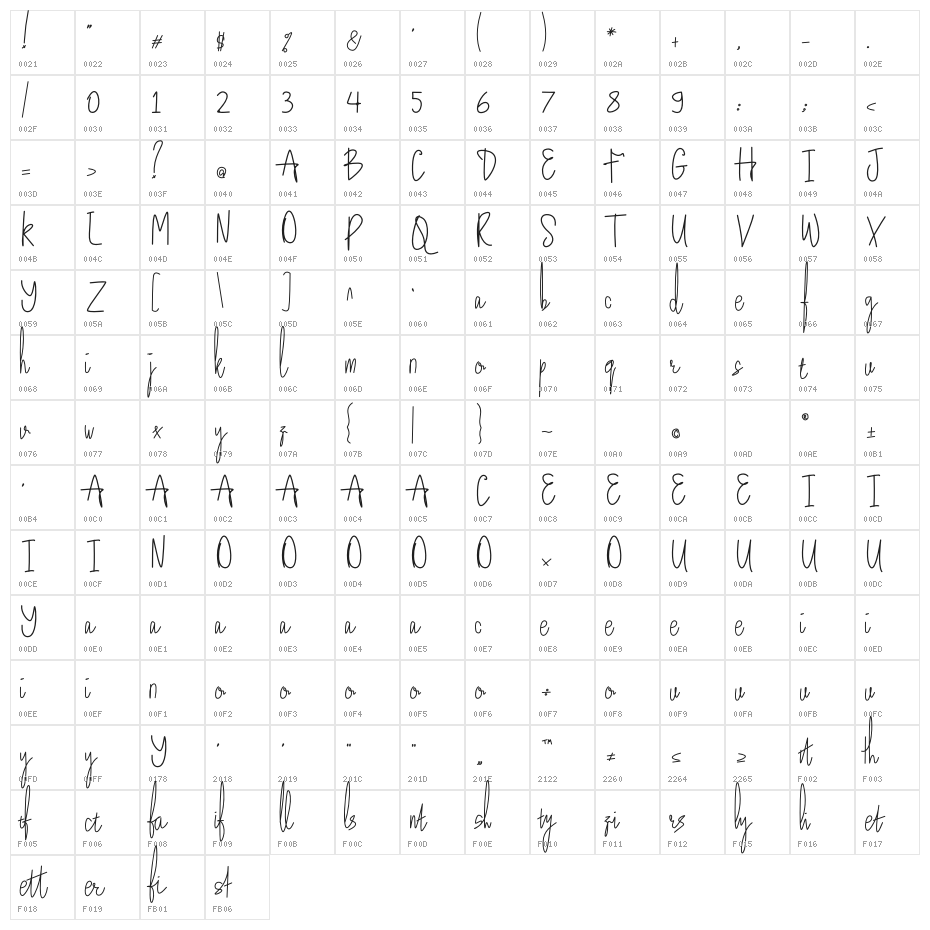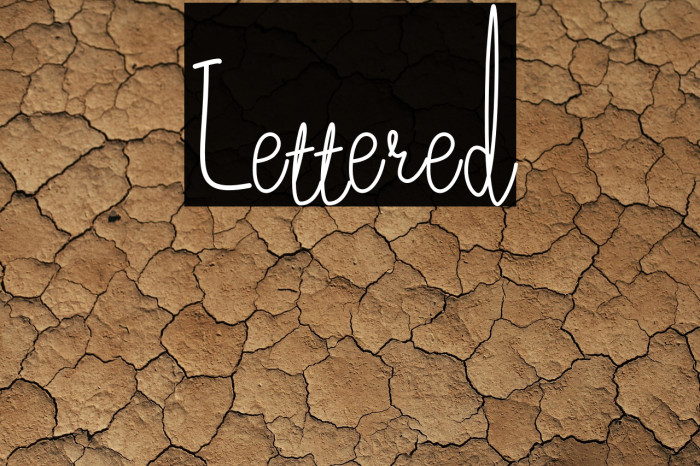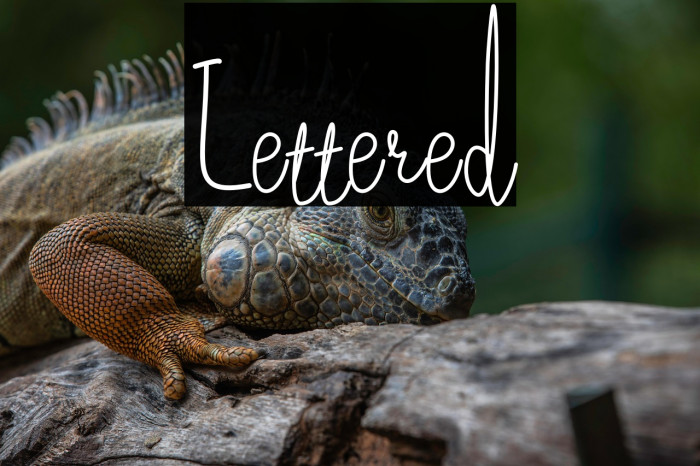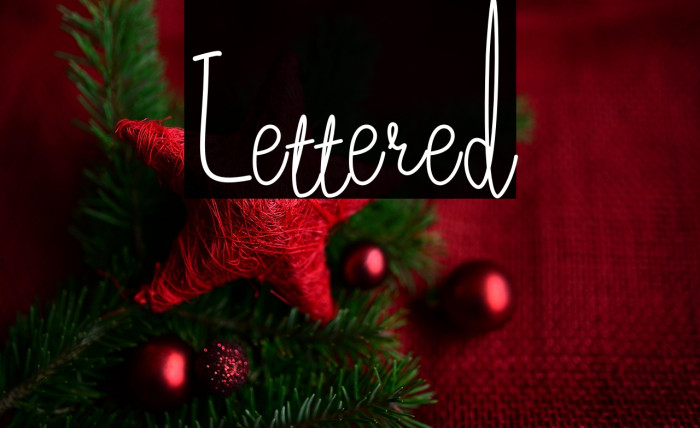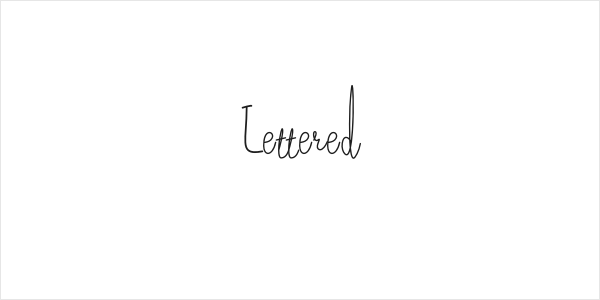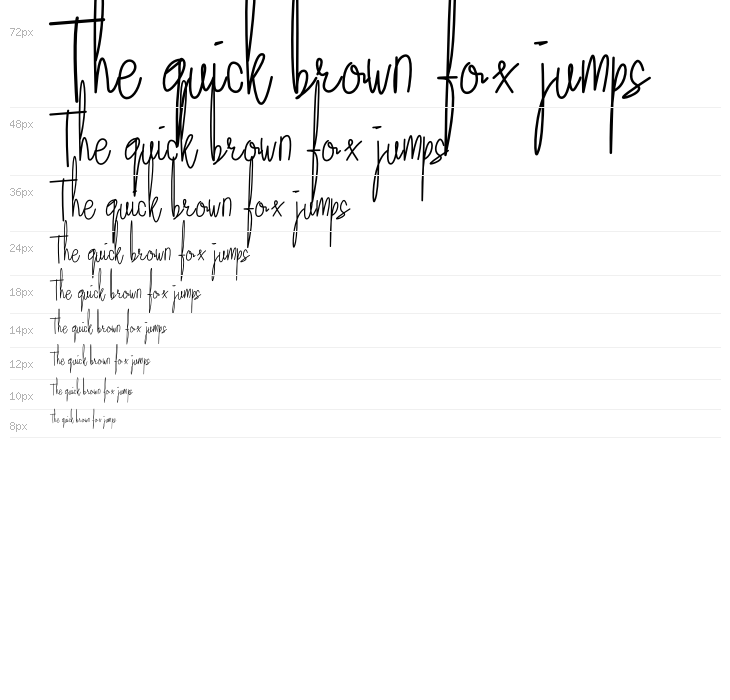
Lettered Font
Lettered Description
This font features a playful and casual handwritten style, characterized by its tall and slightly irregular letterforms. The strokes are thin and consistent, giving it a light and airy feel. The uppercase letters are bold and prominent, while the lowercase letters maintain a more delicate appearance. Numbers and special characters follow the same whimsical style, making the font suitable for creative and informal applications. The overall look is modern and approachable, with a touch of personal flair.
| Overall Style | Modern, Casual |
| Use Case | Logos, Headlines, Informal Text |
| Proposed Projects | Ideal for greeting cards, personal branding, social media graphics, and informal invitations. |